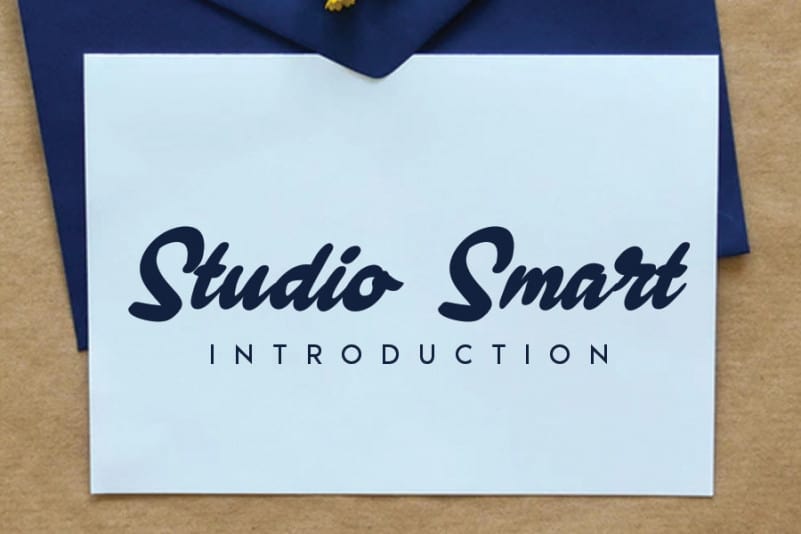
Bellgia Handwritten Font
Bellgia Handwritten Font is an elegant handwritten font, carefully handcrafted to become a true favorite. Its casual charm makes it appear wonderfully down-to-earth, readable and, ultimately, incredibly versatile. This font will look outstanding in any context, whether it’s being used on busy backgrounds or as a standalone headline!
The latest style letters are perfect for wall displays, wedding invitations, social media post logos, advertisements, product packaging, product designs, labels, photography, watermarks, invitations, stationery, and any project that requires taste handwriting.